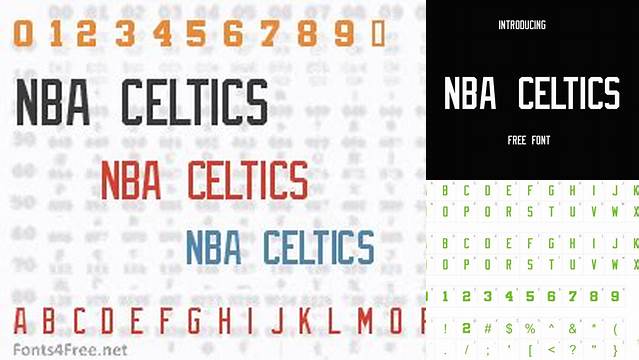
Alright, basketball fanatics! Are you ready to represent your love for the legendary Boston Celtics? If you're a designer, a die-hard fan crafting some fan art, or just someone who appreciates that iconic Celtics look, you've come to the right place. We're diving deep into the world of the NBA Boston Celtics font, exploring where you can snag it for free, and how you can use it to create some seriously awesome designs. Let's get started!
One common practice is to search for fonts similar to the Celtics' font. This allows you to get the closest possible match without using the exact, potentially licensed version. Many font designers create fonts inspired by popular brands and teams. When searching for a font that resembles the Celtics, pay attention to the characteristics of the font. Is it a bold, sans-serif font? Does it have rounded edges? These are the details that will help you find the perfect match. Use tools that let you preview the text. Previewing the font helps you determine if it fits your project. When searching for Celtics fonts online, pay close attention to the file type and the website where you're downloading from. Make sure it's a safe and reliable site to avoid any security risks. Once you've found a font you like, download it, and install it on your computer. The installation process varies depending on your operating system (Windows or Mac), but it's usually straightforward. Make sure you check that the font is usable in your design software before you commit to using it.
H2: Understanding the Celtics' Font: Key Characteristics
To truly capture the essence of the Boston Celtics' branding, you need to understand the key characteristics of their font. The Celtics' font, especially the ones used for their logos and jerseys, is characterized by its strong, bold presence. Typically, it is a sans-serif font, meaning it doesn't have the small decorative strokes at the ends of the letters. This gives it a clean, modern, and athletic look. The font often features a slightly condensed design, which means the letters are a bit narrower than they are tall. This is a common trait in sports fonts because it allows for better readability and a sense of speed and action. Look for fonts that have a consistent weight and a sense of balance. The Celtics' font conveys a sense of legacy and strength. In addition to the font's design, the colors associated with the Boston Celtics—green and white (and sometimes gold)—are essential to their brand identity. When selecting a font, think about how it will look against those iconic colors. Does it create a harmonious look? The font used by the Celtics is designed to project professionalism, power, and prestige. That's why any design needs to have this feel. The fonts used in basketball are crafted to mirror the competitive spirit of the game. Boldness and clarity are paramount in the design, ensuring the message is conveyed clearly. The Celtics’ font is not only a font, but it’s a statement. Remember, the details matter. Study the font used on the jerseys, the court, and other team merchandise. Take note of the curves, angles, and overall proportions of the letters. This detailed study will help you identify the perfect font to capture the Celtics' spirit. Make sure you are choosing a font that aligns with the team's image.
H3: Exploring the History of the Celtics' Typography
Tracing the history of the Celtics' typography offers a fascinating glimpse into how the team’s visual identity has evolved over time. The fonts used by the Boston Celtics, like those of other major sports teams, aren't static. They change and adapt. The font's design reflects the team's era, the evolution of sports branding, and the preferences of the management and design team. Understanding this evolution can help you to create designs that are authentic. Early Celtics branding, in the team's inaugural years, featured fonts that reflected the graphic trends of the time. These fonts were often more straightforward and functional. As the team gained prominence and the sport became more commercialized, the fonts became more stylized. The Celtics' font has evolved to embody their legacy of championships. The font's design has changed to give the brand a more modern and dynamic appeal, reflecting the evolution of the team. When the Celtics went through major periods of success, their typography often reflected that. You can find the influence of typography throughout the team's history. Some of the Celtics' most iconic fonts were born during their most successful periods. The impact of this change is very clear, as these fonts are very recognizable to fans. If you look back at old jerseys and merchandise, you will notice differences in the font used. The fonts and the design team that works with them have changed over the decades. Each change to the Celtics' typography tells a story about how the team has changed and grown. Each time they adopted a new font, they reinforced their brand identity. So, next time you're looking at a Celtics logo or jersey, take a moment to appreciate the history behind the font.
H3: Analyzing the Official Celtics Logo Font
The official Celtics logo font is a symbol of the team's identity. By examining the key details of the font, you can replicate that style. The Celtics logo font is typically a bold, sans-serif design. Notice the weight of the letters, the spacing, and the overall shape of the letters. Studying the characteristics of the logo's typography will help you identify similar fonts. Fonts used for the logos are carefully chosen to embody the team's ethos. The font used in the Celtics' logo usually has a strong presence, making it suitable for branding. The logo is a very crucial part of the team's identity. Fonts used in the logo typically project the team's brand. The logo's design should be visually appealing and create a sense of recognition. The Celtics' logo uses font that is consistent across all their products. The consistency is vital in the branding process. The logo should also be easy to read from a distance. The font should be legible, even when scaled to a smaller size. In order to understand and use the Celtics' font, it is crucial to analyze the logo. When you find the font you are looking for, you can compare it with the official logo. It's important to align the font with the brand's personality. You want the font to be timeless.
H2: Designing with the Celtics Font: Practical Tips
So, you've got a font that resembles the NBA Boston Celtics font, or you've found a good alternative. Awesome! Now, let's talk about how to use it effectively in your designs. First, consider the purpose of your design. Are you creating a poster, a social media graphic, or a jersey? Knowing the context will help you choose the right font size, color, and style. If you are designing for print, ensure your font is readable at the desired size. When using the Celtics-inspired font, you will want to use the team's official color scheme: green, white, and gold. These colors are central to the Celtics' brand, so incorporate them into your design. Use the font to create eye-catching headings and titles. You can also use it for body text, but be mindful of legibility. Use the font to create emphasis and draw attention to key information. Don't be afraid to experiment with the font's weight and style. Using bold or italic versions of the font can help highlight specific words or phrases. Remember to maintain a consistent look across all of your designs. Use the same font and color scheme. To avoid clutter, use white space effectively. Don’t overcrowd your design. When designing, use the team's official logos and imagery. To capture the feel of the Celtics' brand, consider using textures and backgrounds that reflect the team's history. To ensure your design looks good, keep the design clean and organized. You can create a design that celebrates the team.
H3: Best Practices for Font Pairing with Celtics-Inspired Fonts
When using a Celtics-inspired font, you'll often need to pair it with other fonts to create a balanced and visually appealing design. It's important to choose fonts that complement each other and enhance your message. Pair the Celtics font with a clean, sans-serif font for body text. This will provide a good contrast and ensure readability. Try pairing the Celtics font with a font that has a similar style. This will create a cohesive look. You can also consider pairing a bold Celtics font with a more understated font. This creates visual interest. The font's choice should align with the design. Consider the purpose of your design. Is it a social media post, a poster, or a website? The purpose will influence your font choices. Use a font that has good readability. Readability is a very important element of design. Make sure the paired fonts are easy to read, especially at smaller sizes. Don't overcrowd your design. Use a simple and effective design. To achieve a design that works, make sure you have a harmonious design. When pairing fonts, consider using the color scheme of the Celtics. The color scheme can influence your choice. Experiment with different pairings, until you find the perfect blend.
H3: Creating Designs for Apparel and Merchandise
If you're planning to use the NBA Boston Celtics font for apparel or merchandise, there are a few extra things to keep in mind. First, you will need to ensure the font and design are suitable for the material. For apparel, consider how the font will look when printed on fabric. Ensure the design is durable and long-lasting. When designing apparel, choose a font that fits the purpose. Choose the right font for apparel that appeals to the team's fans. The design should appeal to the target audience. When designing merchandise, use the team's official color scheme and logo. Always check the license of the font to make sure you can use it for commercial purposes. Make sure the font you're using is well-suited for the type of merchandise you're creating. Keep the design simple and clear. You want the design to be recognizable. Consider the size of the font. Large fonts are suitable for t-shirts. Always check the design of the merchandise. Consider the potential for the design to be scaled for different merchandise items. Before you start printing, create a mock-up of your design to see how it looks in real life. The design should be visually appealing. Always adhere to licensing agreements, to avoid any legal issues.
H2: Using the Celtics Font in Digital Designs: Websites and Social Media